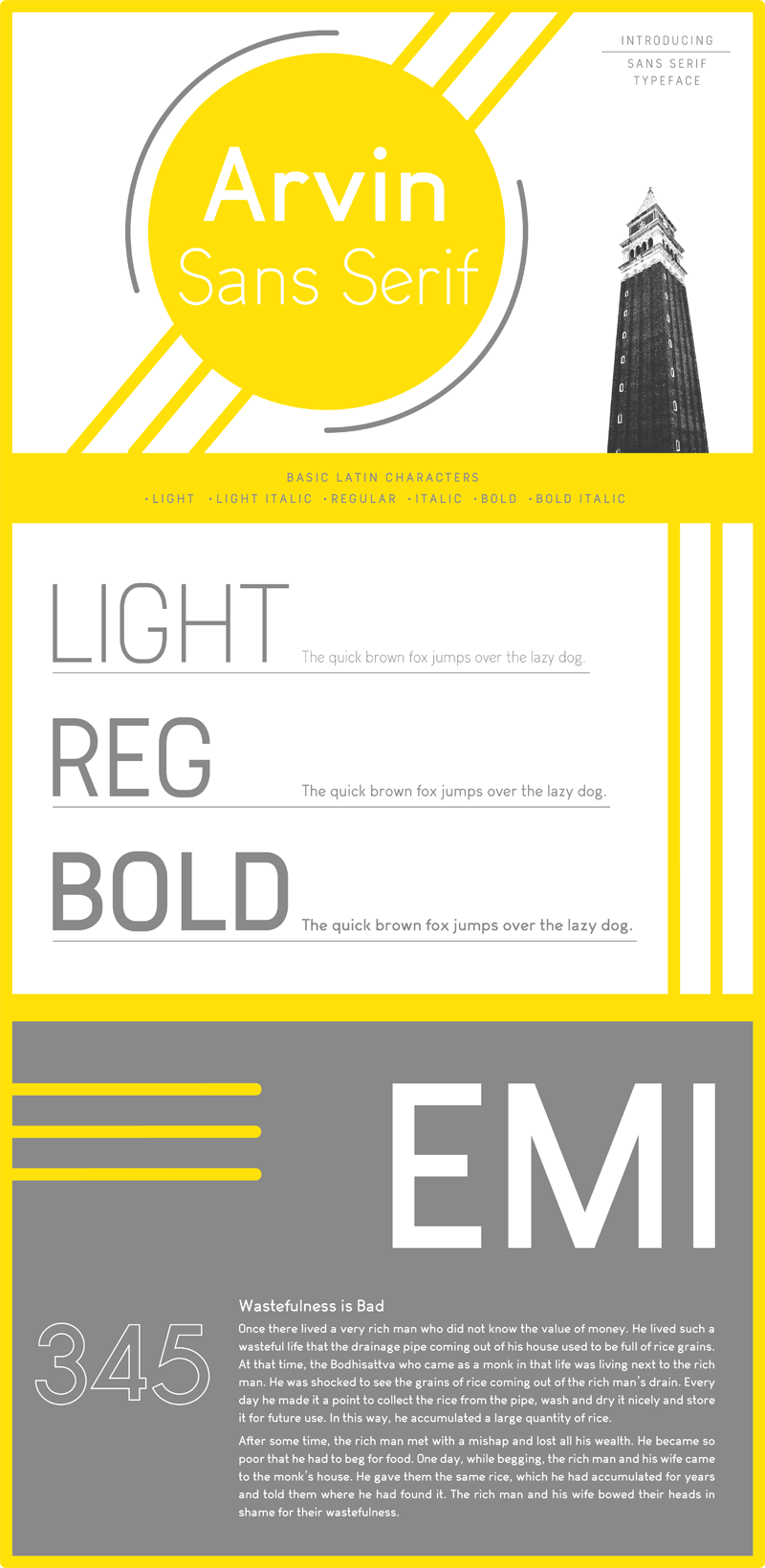
Preview and download Arvin Font. Created by Chen Yining in Basic Sans serif styles with 100% Free license.
This is a sans serif basic font. It's a professional version which was complicated hand-made and computer-generated graphics, and various revisions. After installing on the computer, you can create posters, web graphics, game graphics, t-shirts, videos, signs, logos and more. Arvin has a beautiful moral, meaning impartiality. Not separate, not fixate on, treat everything impartially, keep the mind optimistically, and view broadly. These fonts are 100% FREE for both personal and business usages. If you have any question, please feel free to contact me. yiningchen23@gmail.com |